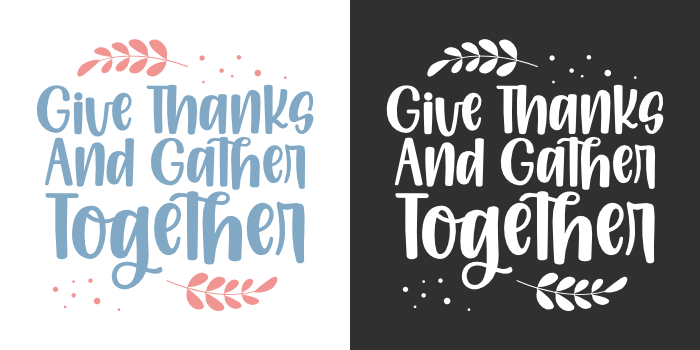
Give thanks and gather together vector graphic design typography lettering quotes fot print or cut file
Give thanks and gather together vector graphic design typography lettering quotes illustration. Great design for book cover, postcard, cut file, t shirt print or poster.